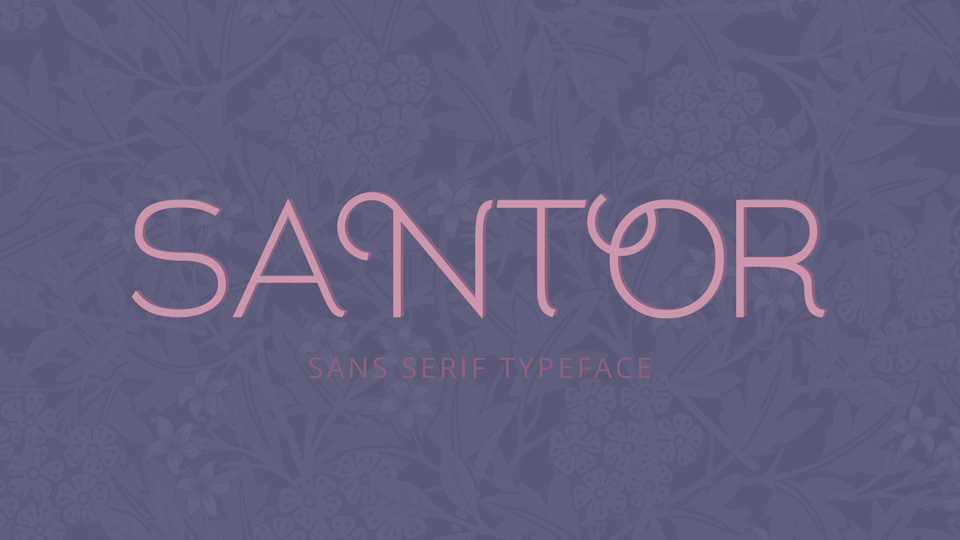
Download Santor font, an elegant sans serif typeface inspired by simplicity, subtle curves and sharpness. Each character of Santor is given a unique look so that it’s easy to distinct them when they are put together.
Designer: Tra Nguyen